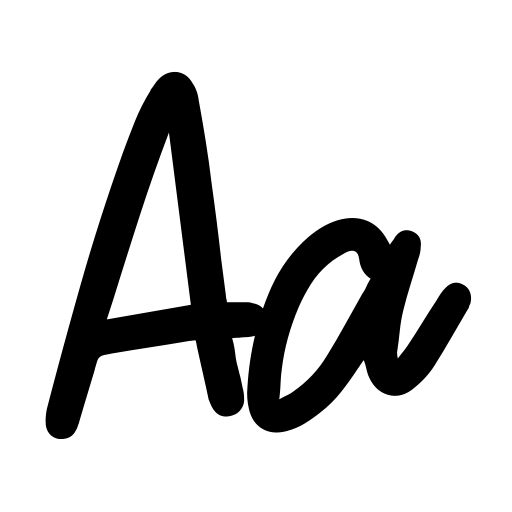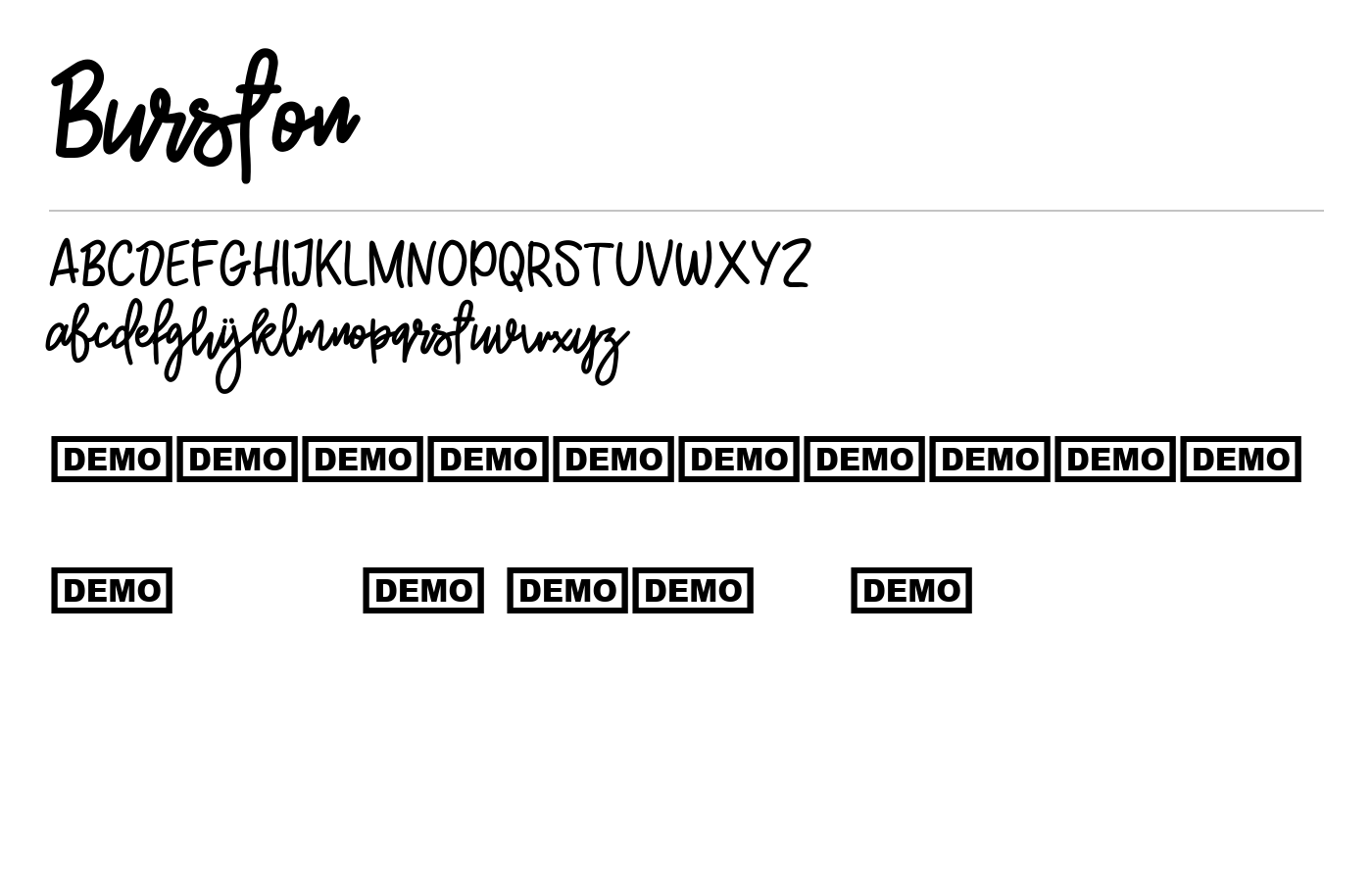
Burston is a lively and casual script font with a hand-drawn, natural feel, characterized by its smooth, flowing strokes and moderate contrast. It combines playful uppercase letters with a fluid lowercase that includes classic single-story forms, making it welcoming and approachable. This font works wonderfully for creative branding, informal invitations, and expressive headlines where a friendly and personal touch is desired.
Burston Font
About Burston Font